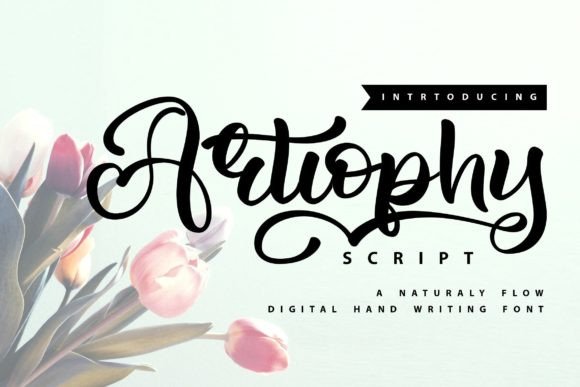
Artiophy Font
Download Artiophy Font for free! Created by Vunira and published by Cheskel Curry, this script font family is perfect for adding a unique touch to your designs.
Imagine crafting an invitation that captures the essence of heartfelt elegance, where each letter dances with grace upon the page. With Artiophy Font, your words will transform into enchanting melodies, inviting your loved ones to moments of pure bliss.
Artiophy, the epitome of handwritten beauty, is a script font that weaves its magic effortlessly. Its strokes, as delicate as a whisper, carry the weight of emotions, transforming your creations into timeless masterpieces. Be it invitations, greeting cards, or branding materials, Artiophy adds a touch of ethereal charm that leaves a lasting impression.
Step into a world where creativity knows no bounds, where every business card becomes a miniature work of art, and posters burst forth with captivating messages. Artiophy's versatility knows no limits, adapting seamlessly to a symphony of design projects. Unleash your imagination and watch as your ideas blossom into visual wonders.
With Artiophy, the possibilities are as endless as the starry night sky. Its PUA encoding grants you access to a treasure trove of glyphs and swashes, allowing you to infuse your designs with intricate details and flourishes. The ease of use belies the depth of beauty Artiophy holds, making it a font that both beginners and seasoned designers can wield with effortless grace.
Let Artiophy be your muse, the catalyst that ignites your creative spark. With its elegance and romantic allure, it will transform your designs into captivating expressions of art. Journey into the world of Artiophy, where your imagination takes flight and your creations leave an enduring legacy.